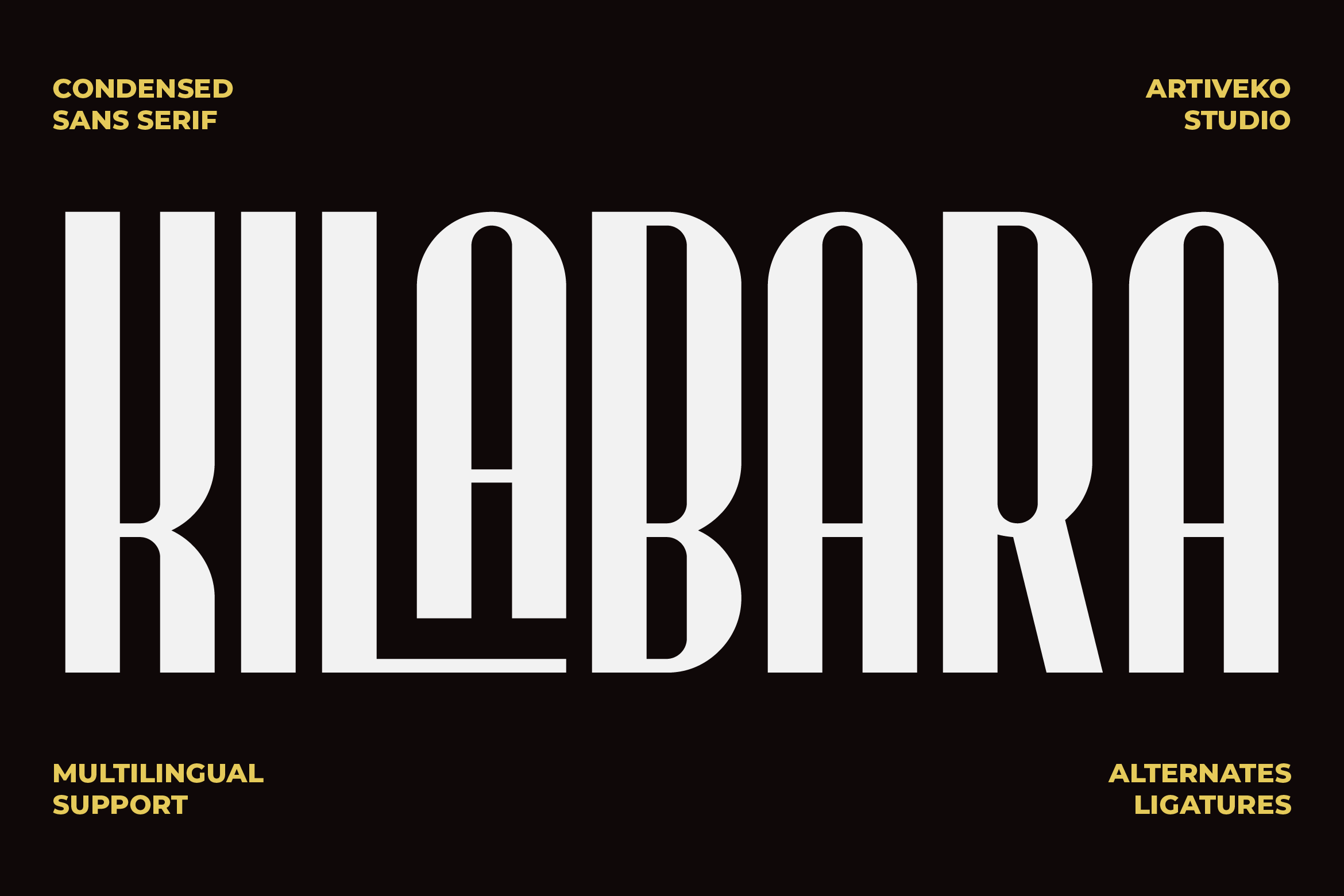
- Kilabara Condensed Sans Serif Font
Kilabara is a modern condensed sans serif typeface crafted for designers who want maximum impact with a clean, minimal footprint. Its narrow width, smooth geometry, and refined letterforms create a bold visual rhythm while remaining highly legible in tight spaces. Kilabara brings a sleek, contemporary feel that works beautifully for headlines, branding systems, posters, editorial layouts, and digital interfaces.
Each character is designed with precise curves and strong vertical structure, giving the font a confident, streamlined appearance. The condensed form helps you fit more content without sacrificing elegance, making it ideal for modern brands that need clarity, efficiency, and style.From logo design to social media graphics, Kilabara adds a professional and polished personality to every project. Whether used in large-scale titles or compact UI elements, it maintains excellent readability and visual consistency.Kilabara is the perfect choice for designers seeking a powerful condensed sans serif that communicates modernity, simplicity, and strength with effortless sophistication.